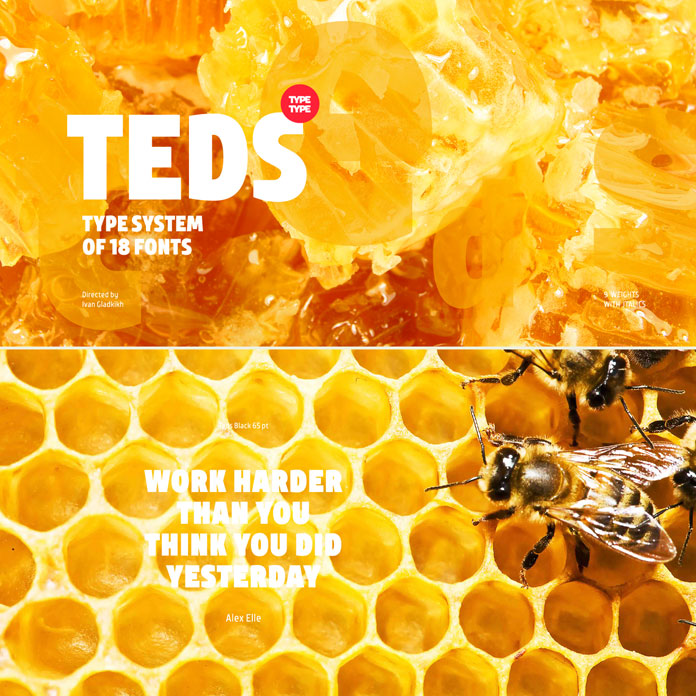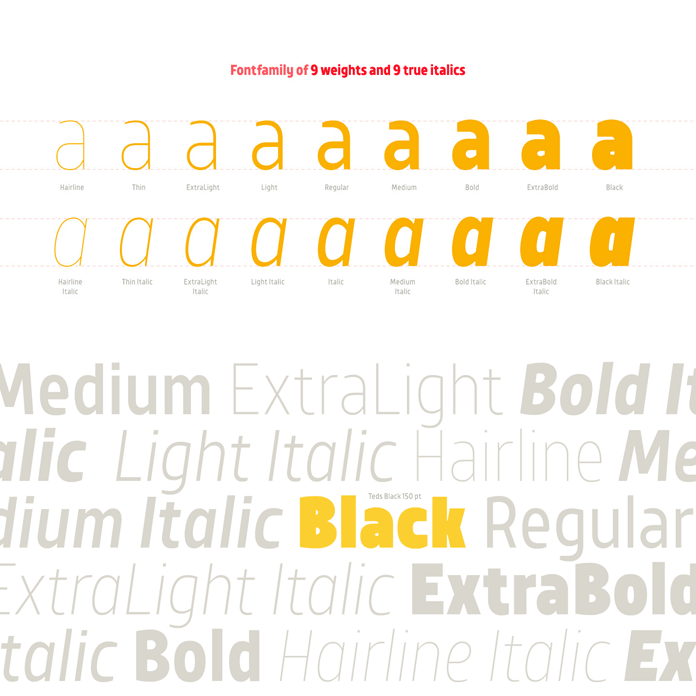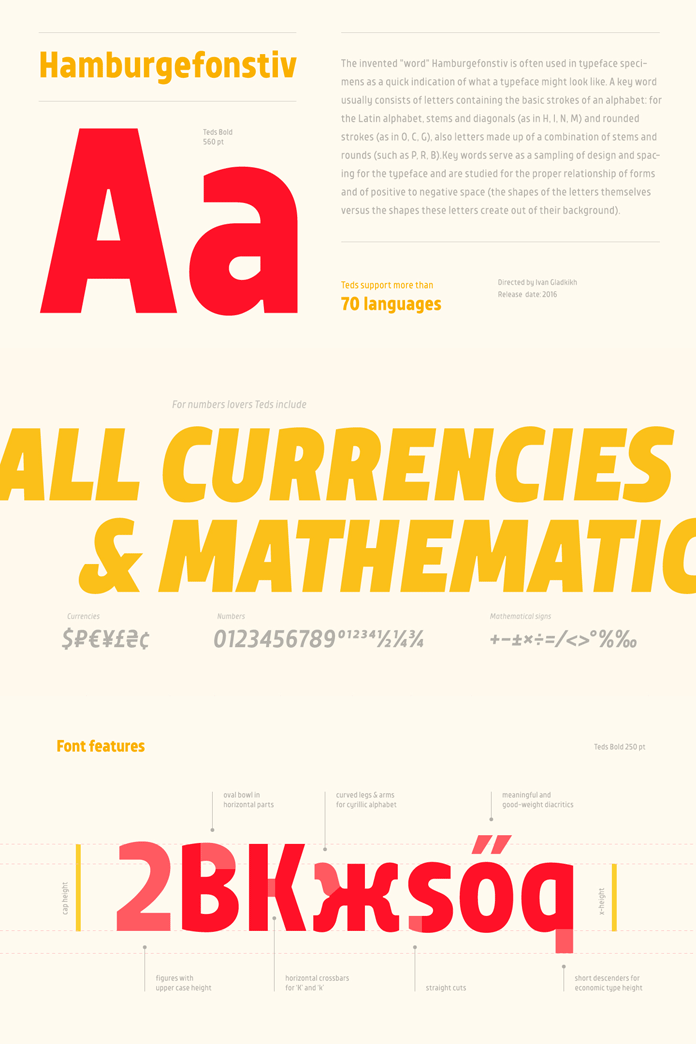
The TT Teds font family, a geometric non-serif typeface from foundry TypeType.
The renowned foundry TypeType has released another great font family. TT Teds was designed by Russian designer Ivan Gladkikh in 2016. It’s a geometric non-serif with slightly narrow proportions. You can use it for a variety of typographic needs ranging from eye-catching headlines to long texts. Its great readability even in small font sizes is the result of TT Teds’ relatively tall lowercase characters as well as its open forms of semi-circular characters, and the distinctive low contrast between vertical and horizontal lines. To celebrate the release of this new family, TT Teds is currently available as a super discount introductory offer for 85% off (only for a limited time). Get more details below or click on the following link.
TT Teds, a modern sans serif with multi-language support and plenty of typographic scopes.
The family comes with 9 weights plus true italics. The diverse weights include a Hairline, Thin, Extra Light, Light, Regular, Medium, Bold, Extra Bold, and Black. Its extensive character set of Latin and Cyrillic letters supports more than 70 languages. You can use this typeface in a variety of print media as well as web and mobile applications. The complete family is available as both desktop version and webfont on MyFonts, just follow the link below.